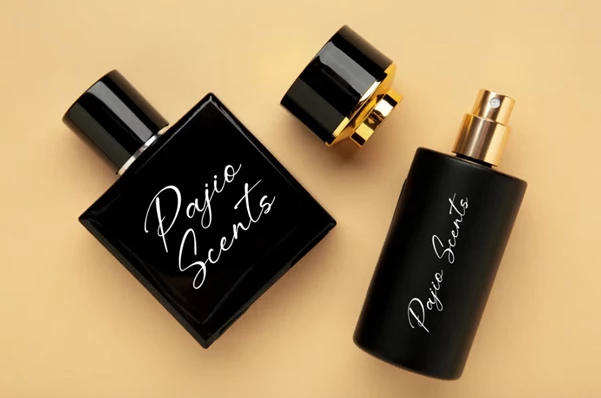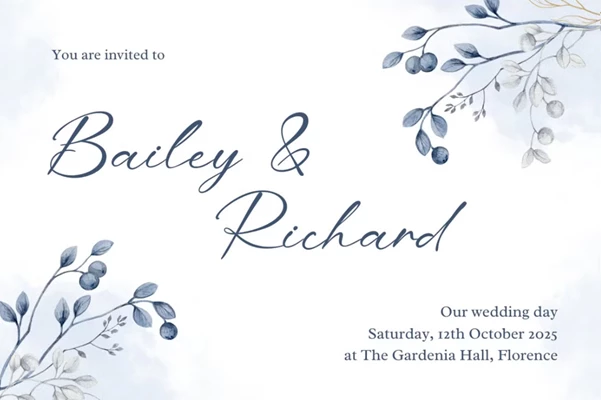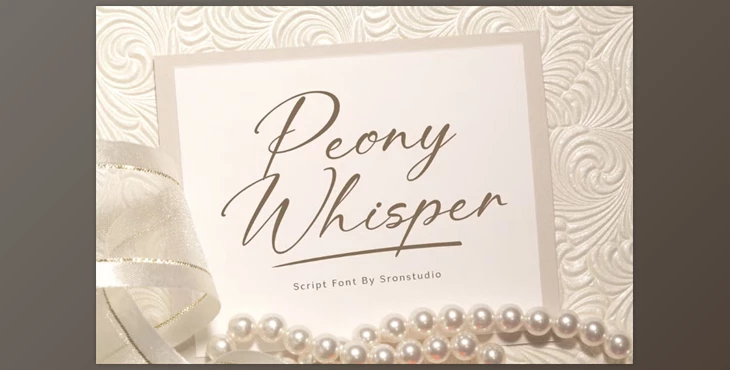
Peony Whisper - Signature Font:
Peony Whisper is an elegant signature font that takes natural handwriting and turns it into digital lettering. Featuring a lovely flow and soft strokes, this fancy, stylistic font is perfect for any project. Ideal for branding, wedding invitations, product labels, and social media posts to personal signatures, Peony Whisper is the font with a luxurious but handwritten feel; it's sure to elevate your creations into something timeless.
- Upper and lowercase characters,
- Numbers, and punctuation.